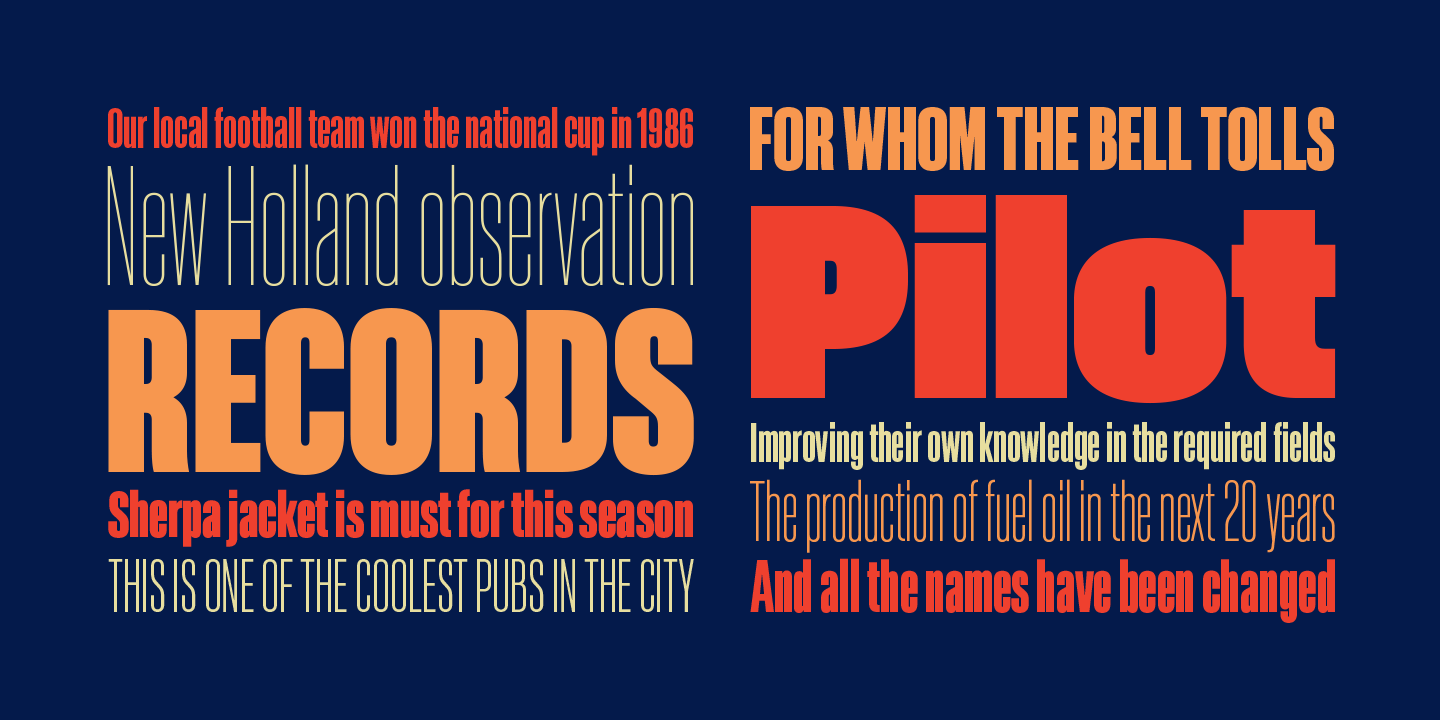
Akkordeon Font is perfect for traditional folk music festival branding, European polka band promotions, authentic German beer garden signage, Oktoberfest celebration materials, traditional music school advertising, folk dance event graphics, cultural heritage music venues, European folk instrument shop marketing, traditional music recording labels, and nostalgic folk culture publications. Its melodic folk character makes it ideal for projects requiring traditional music authenticity and European folk culture representation.
What makes Akkordeon Font exciting is its harmonious embodiment of folk music tradition and European cultural heritage with rhythmic letterforms and musical characteristics that capture the essence of traditional accordion music and folk celebration excellence. The font features flowing musical curves, folk-inspired proportions, and traditional character construction that create authentic folk atmosphere and musical appeal. Its melodic personality brings warmth and cultural authenticity to contemporary designs while maintaining the clarity essential for cultural communications and folk music presentations. The carefully crafted musical elements ensure cultural accuracy while preserving the distinctive character that embodies the essence of folk tradition and European musical excellence.
Akkordeon Font comes in multiple musical variations including Light, Regular, Medium, Bold, and Folk styles. Each family member maintains the distinctive folk character while offering comprehensive flexibility for traditional typography and folk cultural brand system development. The complete font family includes alternate characters, musical symbols, and folk decorative elements that provide extensive tools for creating immersive folk design experiences and authentic traditional music brand storytelling.
Whether you're developing folk music brands, traditional cultural organizations, or European heritage projects, Akkordeon Font Free Download provides the authentic musical charm needed to communicate with folk music enthusiasts and cultural heritage communities who appreciate traditional music and European folk culture. The font's melodic appeal resonates with folk musicians, cultural professionals, and traditional music educators seeking authentic folk credibility and musical sophistication. Its comprehensive character set includes musical symbols and folk marks, making it perfect for creating complete traditional brand systems and memorable folk storytelling across diverse cultural applications and music-focused design projects that celebrate folk heritage and European musical excellence.